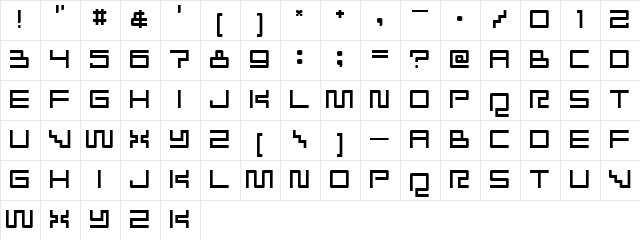
Radioaktivitet Regular
Design Context for Radioaktivitet Typeface
Radioaktivitet is a composed and adaptable typeface that performs quietly and consistently across a wide range of design contexts.